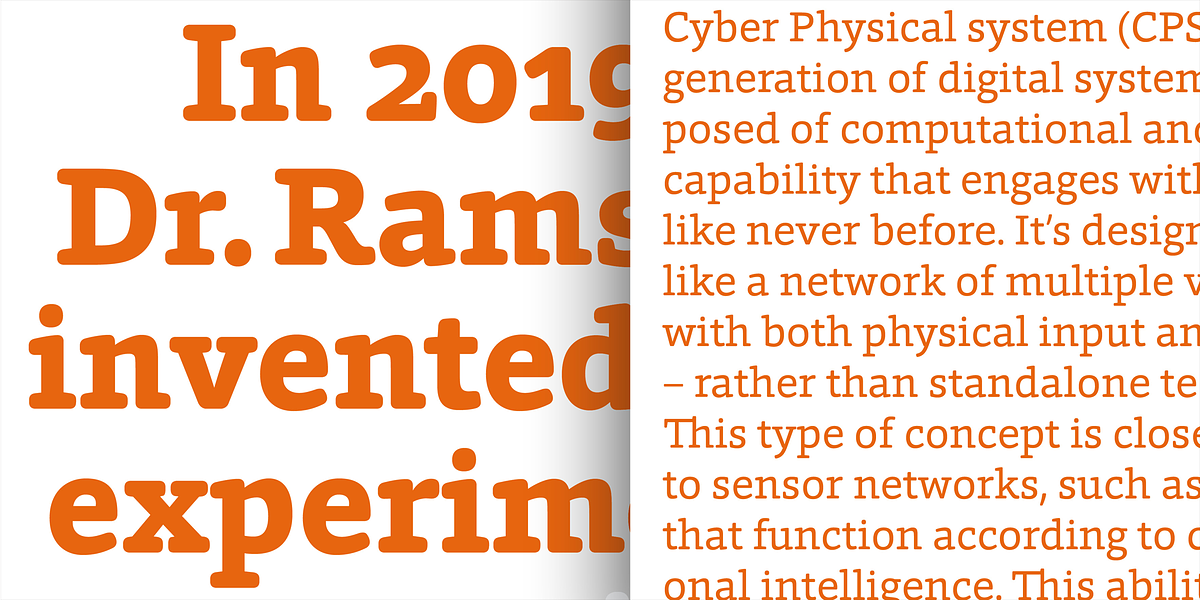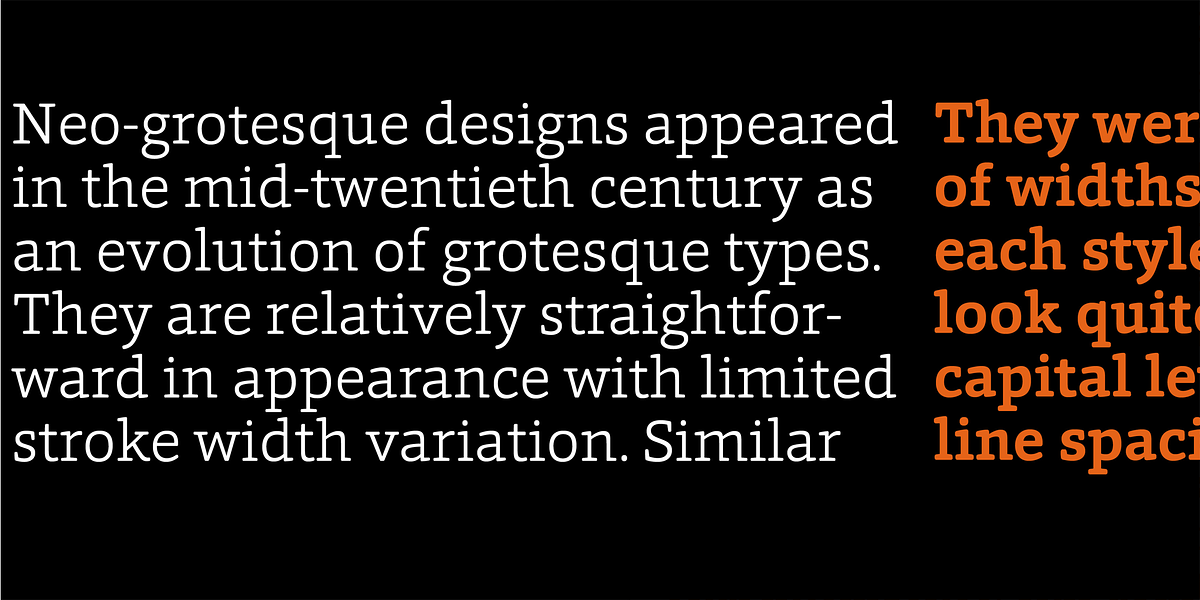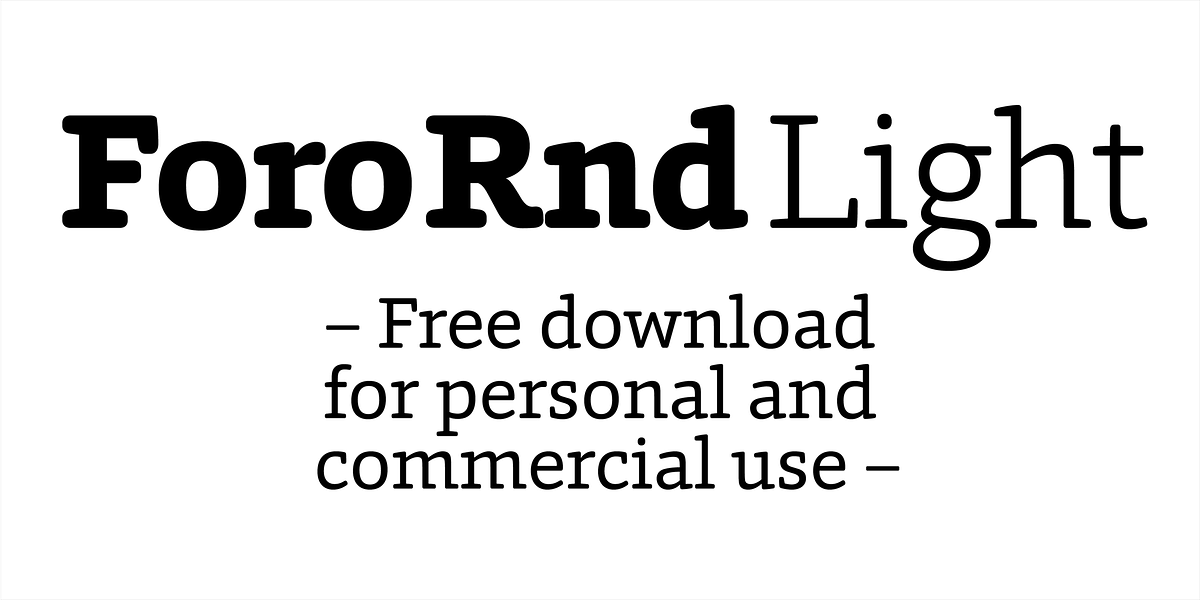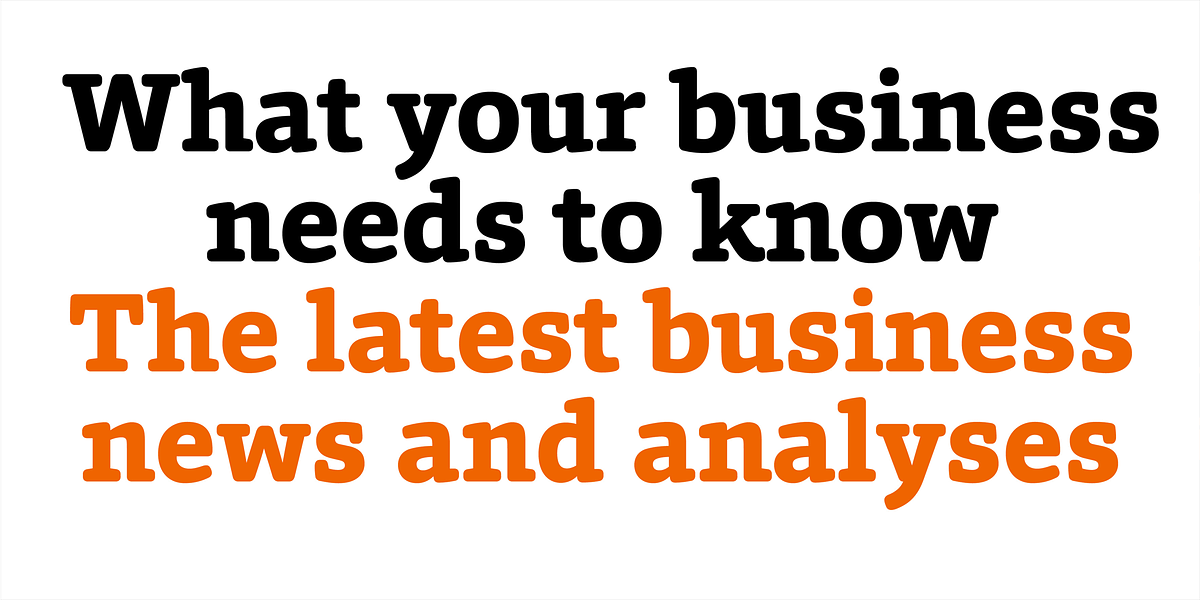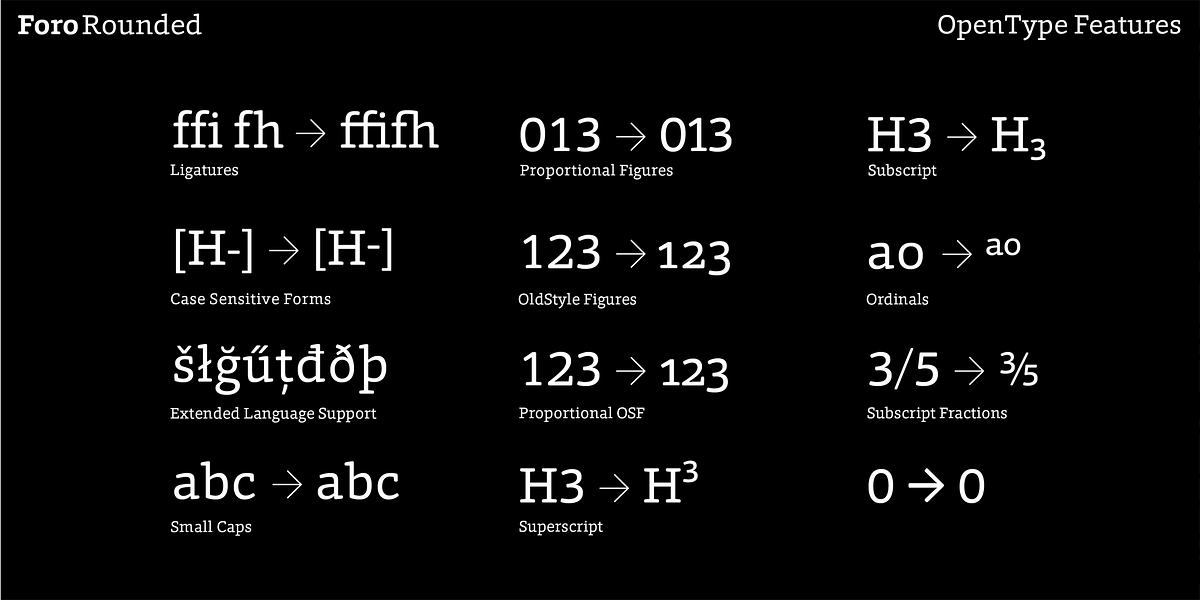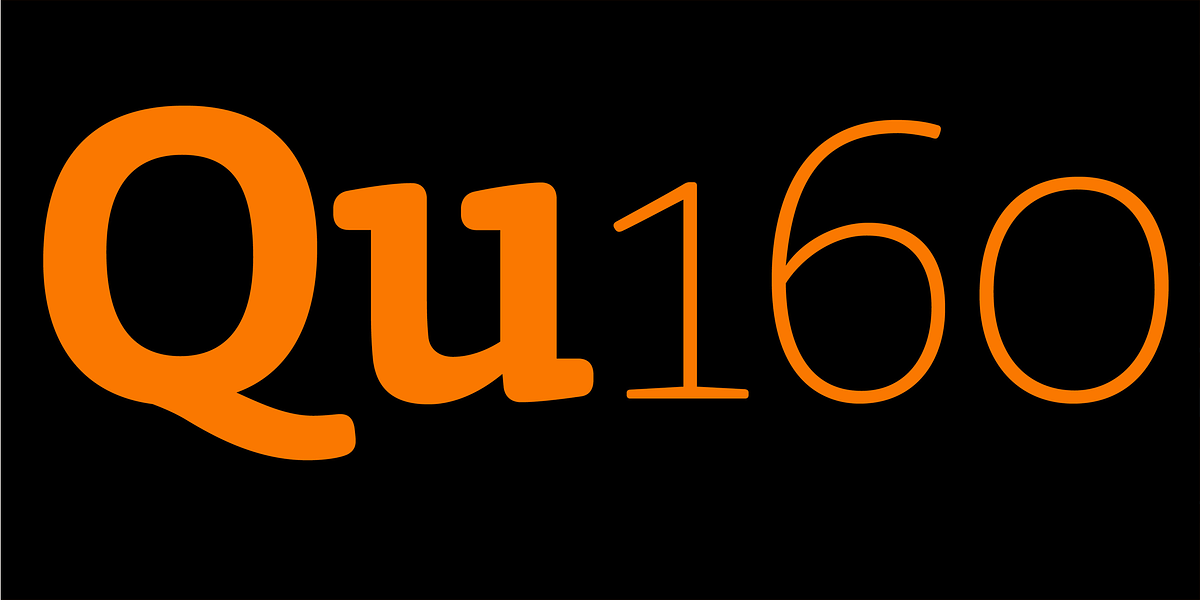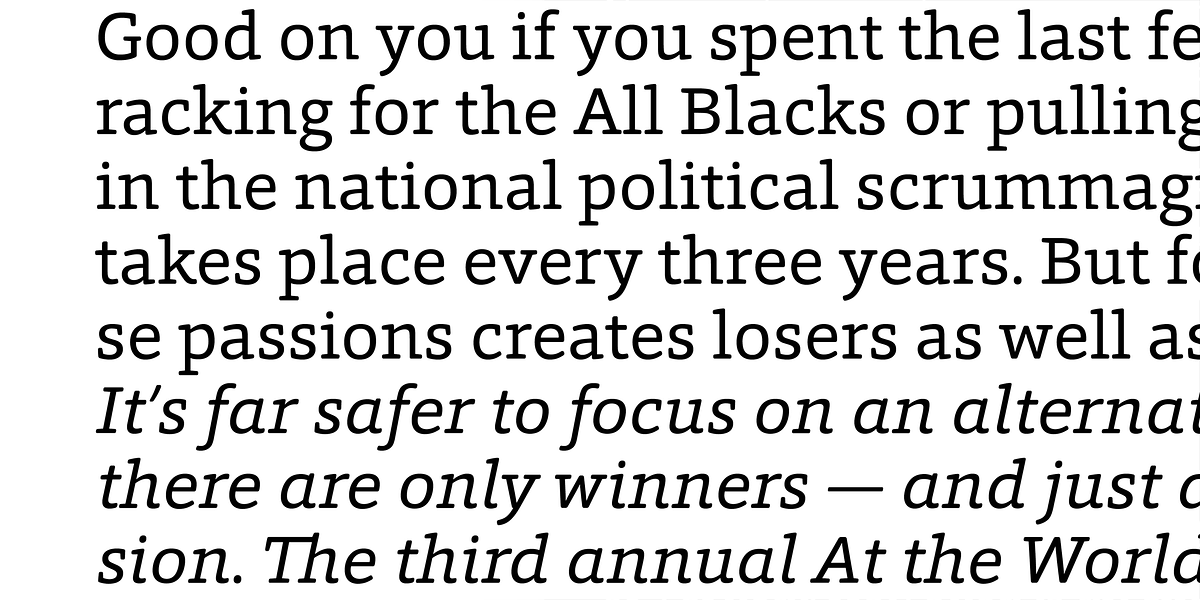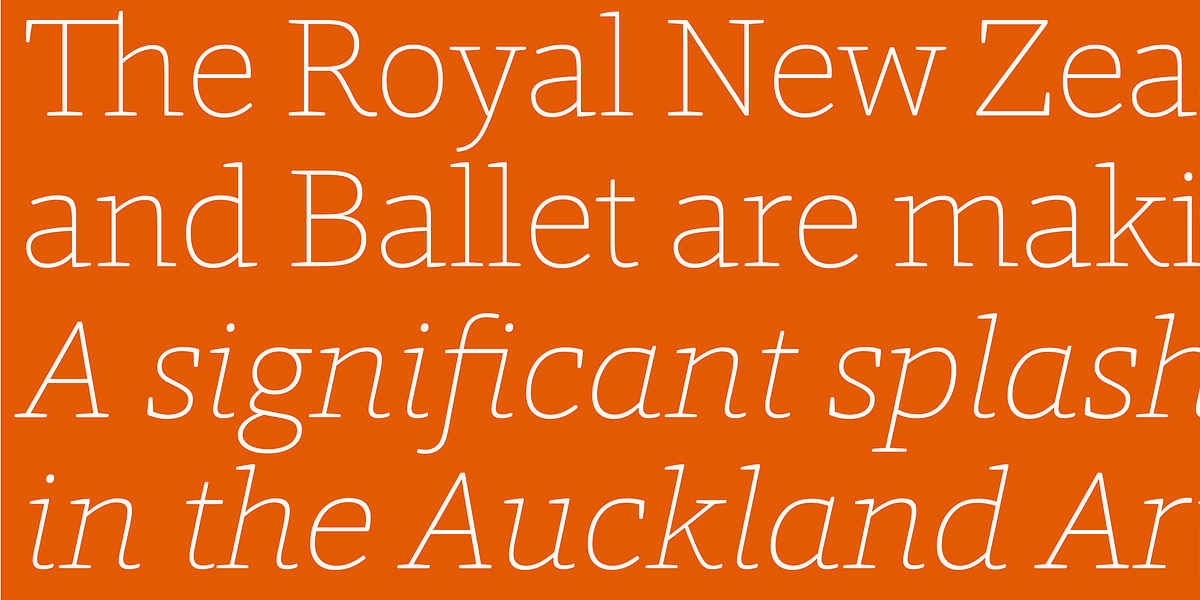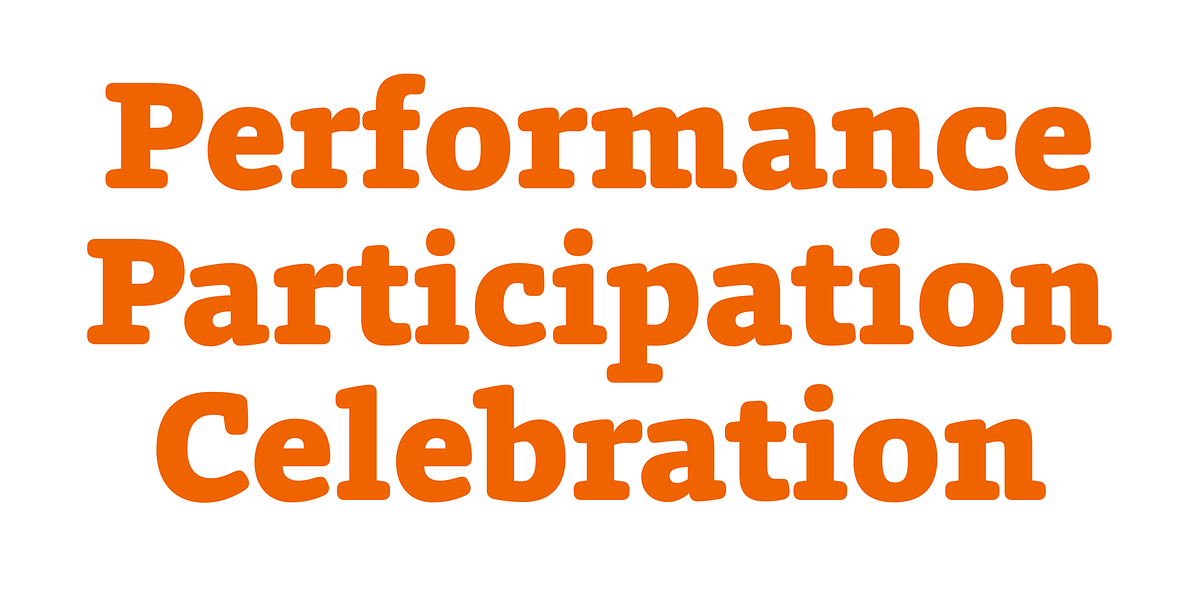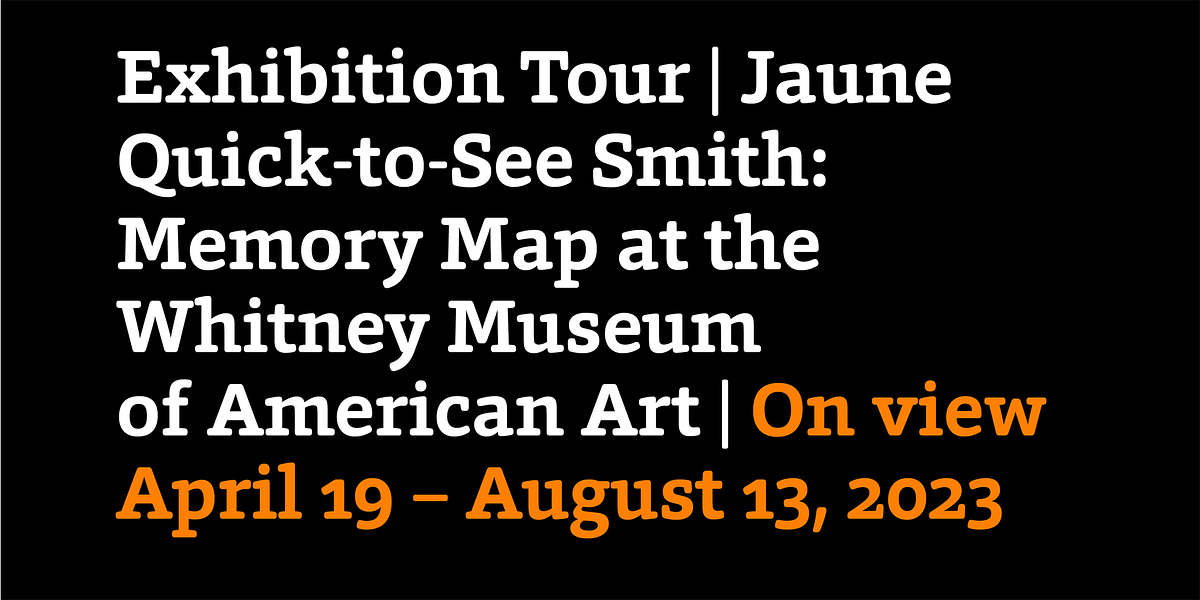
Foro Rounded
Foro Rounded is a humanist slab serif font characterized by its rounded forms. It offers a softer aesthetic compared to other slab serifs, making it suitable for both headlines and body text. The font comes in 16 styles and supports a wide range of languages.